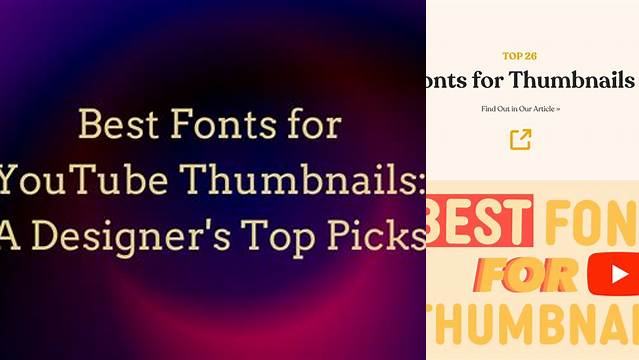
Best Fonts For Thumbnails: Reddit Picks
Why Font Choice Matters for YouTube Thumbnails
Alright guys, let's talk about something super crucial for your YouTube success: your thumbnails. Seriously, these little images are your first impression, your digital handshake with potential viewers. And a massive part of a killer thumbnail is the font you use. Think about it – you've spent ages crafting an awesome video, but if your thumbnail looks messy, hard to read, or just plain boring, people are gonna scroll right past. Reddit's been buzzing about this for ages, with creators sharing their favorite go-to fonts that grab attention and get those clicks. The right font can convey the mood of your video, highlight key information, and make your thumbnail instantly recognizable. It’s not just about picking a pretty typeface; it’s about strategic design. We're diving deep into what makes a font pop on YouTube, why certain styles are more effective, and what the Reddit community is hyping up right now. Get ready to level up your thumbnail game because, believe me, a great font is a game-changer.
Popular Font Categories Discussed on Reddit
So, what kinds of fonts are Redditors raving about for thumbnails, you ask? It's a mix, but certain categories always come up. First off, bold sans-serifs are a perennial favorite. Think clean, impactful, and super readable even when shrunk down to thumbnail size. These fonts have a modern feel and are perfect for conveying information quickly. Then you’ve got impactful display fonts. These are the ones with a bit more personality – maybe a bit grungy, futuristic, or stylized. They're great for setting a specific tone, but you gotta be careful they don’t become illegible. Another hot topic is script fonts, but usually for accent words or adding a touch of elegance, not for your main text. Redditors often warn against using overly complicated scripts that are impossible to decipher. We also see discussions about slab serifs, which offer a strong, classic feel with those distinctive blocky serifs, and stencil fonts for that edgy, DIY vibe. The key takeaway from Reddit threads is versatility and readability. Whatever category you lean into, make sure it serves the purpose of grabbing attention and communicating your video's essence at a glance. The community often shares examples, showing how these different font styles work in practice, and it’s a goldmine of inspiration for anyone looking to refine their thumbnail strategy.
Top Sans-Serif Fonts Recommended by Reddit Users
When the Reddit hive mind talks thumbnails, bold sans-serifs are almost always at the top of the list. These fonts are the workhorses of thumbnail design for good reason. They are incredibly legible, even at small sizes and when viewed on mobile devices. Think fonts like Montserrat, Bebas Neue, and Impact. Montserrat is a fantastic all-rounder, offering a variety of weights from light to black, making it super versatile. Bebas Neue is known for its condensed, all-caps style, which packs a punch and is perfect for short, punchy titles. Impact is a classic for a reason – it’s super bold, wide, and commands attention. Redditors often suggest using these with a slight outline or drop shadow to make them stand out even more against busy backgrounds. The clean lines and lack of serifs mean they don't get cluttered, ensuring your title is the star. Many creators on Reddit swear by using these fonts as their default, praising their ability to communicate information clearly and attractively. They're the safe bet that rarely fails, providing that instant visual grab that’s essential for clicking through.
Bold and Condensed Sans-Serifs for Maximum Impact
Let’s get more specific, guys. When we talk about the bold and condensed sans-serifs that get shouted out on Reddit, we’re talking about fonts that practically scream “look at me!”. These aren’t your subtle, understated typefaces. We’re talking about fonts like Oswald and Anton. Oswald is a fantastic option that offers a slightly more refined feel than some other condensed options, but it’s still incredibly bold and impactful. It’s great for fitting more text onto your thumbnail without sacrificing readability. Anton, on the other hand, is pure, unadulterated boldness. It’s wide, chunky, and perfect for titles where you want maximum visual weight. These fonts are often recommended for gaming thumbnails, reaction videos, or anything with a high-energy subject matter. The key here is using them judiciously. While they’re great for impact, cramming too much text into them can make the thumbnail look cluttered. Reddit users often advise pairing these powerhouses with simpler, more readable fonts for secondary text, or just letting the bold font do all the talking. The magic happens when you use their inherent strength to create a focal point that immediately draws the viewer's eye. They're the heavy hitters that ensure your title isn't just seen, but felt.
Versatile Sans-Serifs for Different Niches
Beyond the super bold and condensed options, Reddit also highlights versatile sans-serifs that work across a wide range of video niches. These are the fonts that can adapt, looking great whether you’re vlogging, reviewing tech, or sharing DIY tips. Poppins is a prime example that gets a lot of love. It's a geometric sans-serif that’s clean, friendly, and comes in a huge range of weights, offering incredible flexibility. You can use a lighter weight for subtitles or smaller text, and a heavy weight for your main title. Another popular choice is Lato. It’s known for its warm and friendly feel while maintaining excellent readability. Like Poppins, it has a full spectrum of weights, making it a designer's dream. Redditors often mention how these fonts strike a perfect balance between being modern and approachable. They don't overpower the visual elements of the thumbnail but instead complement them, ensuring the overall design is cohesive and professional. Whether your video is about cooking, travel, or personal finance, these versatile sans-serifs can convey the right tone and ensure your message gets across loud and clear. They are the reliable choices that form the backbone of many successful thumbnail designs discussed in online communities.
Trending Serif Fonts for a Classic Appeal
While sans-serifs often dominate the conversation for their modern, clean look, serif fonts are definitely making waves on Reddit for thumbnails, especially when creators want to evoke a sense of classic appeal, authority, or a more traditional vibe. Think of those little